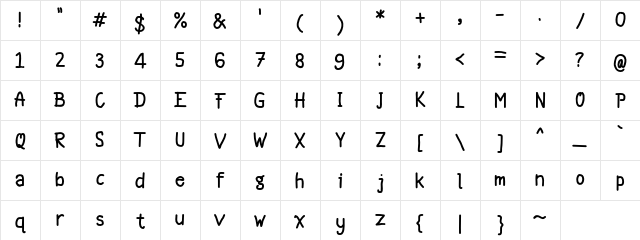
Complete Hellowen Regular glyph index. Displaying only characters natively supported by Hellowen Regular font.
Hellowen is a composed and adaptable typeface that performs quietly and consistently across a wide range of design contexts.
Pro Tip: Use Hellowen in both headline and body roles to test its range before committing to a single application.